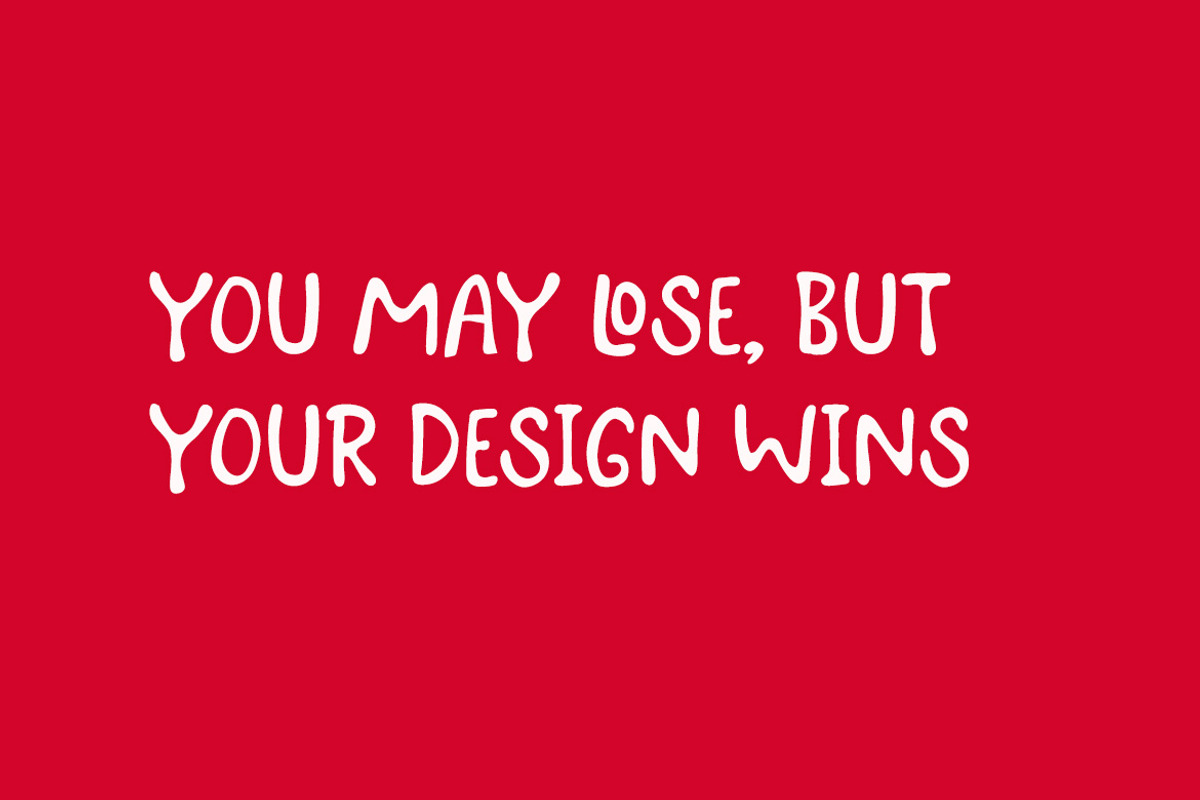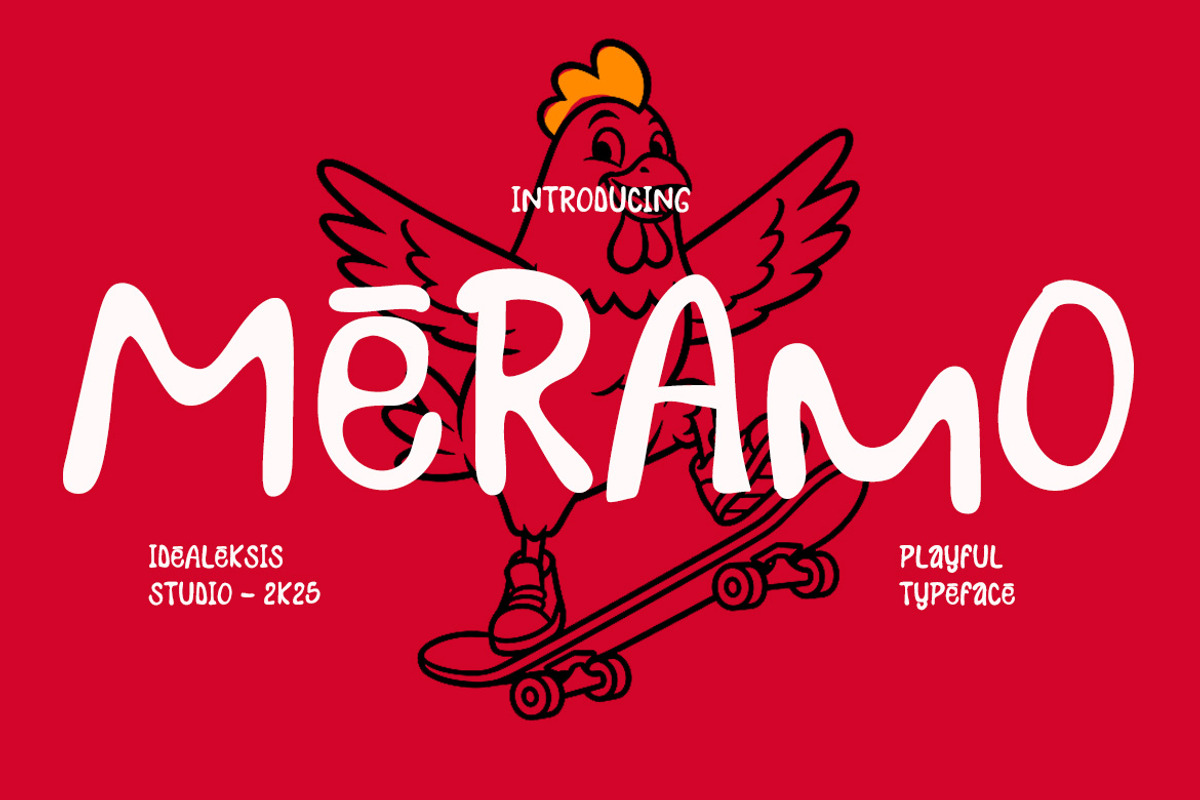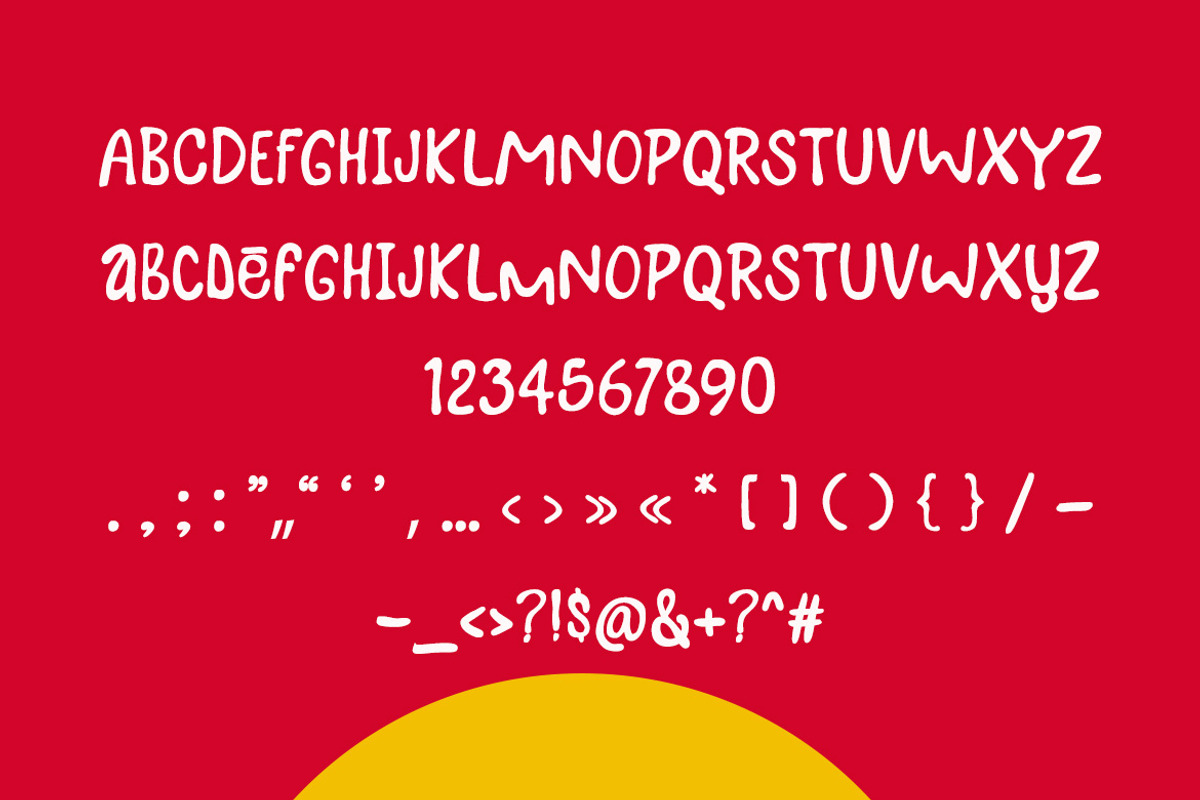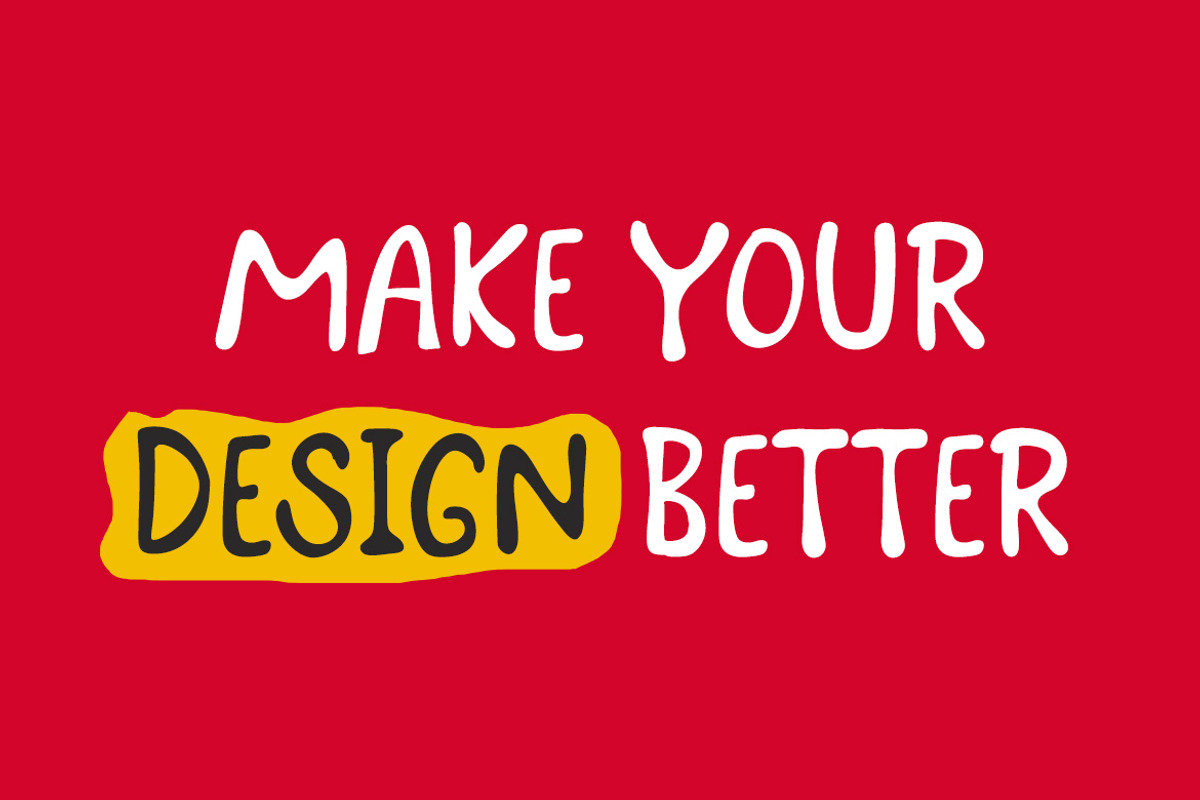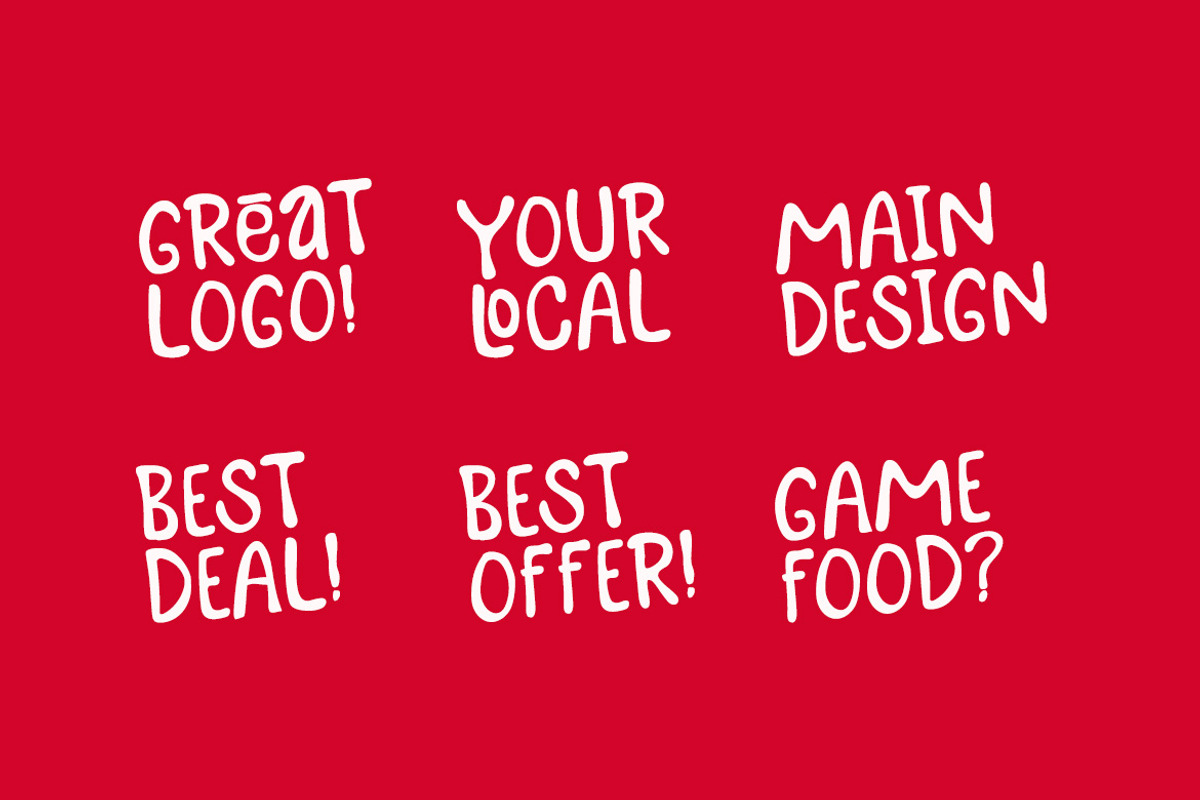
Meramo
Meramo is a playful and fun display with rounded, friendly shapes and a casual hand-drawn feel. Perfect for children’s books, posters, product packaging, logos, and creative designs that need a joyful and energetic touch.
- Uppercase (ALL CAPS)